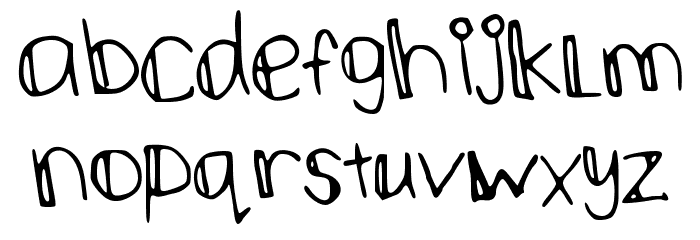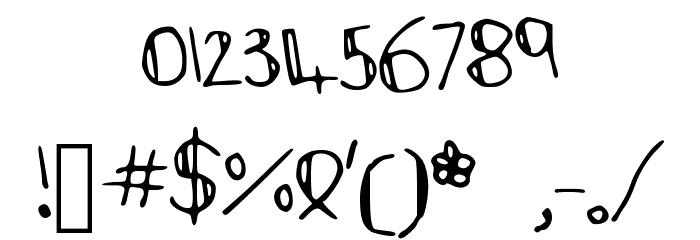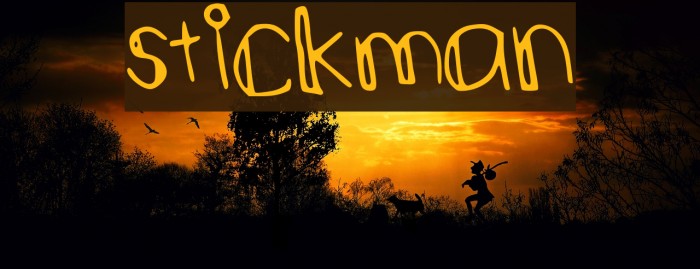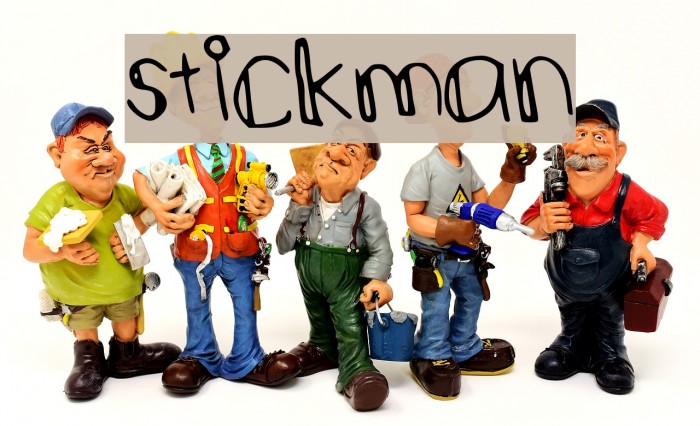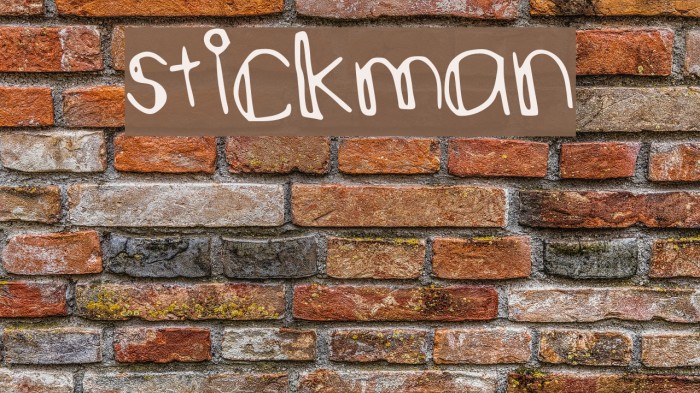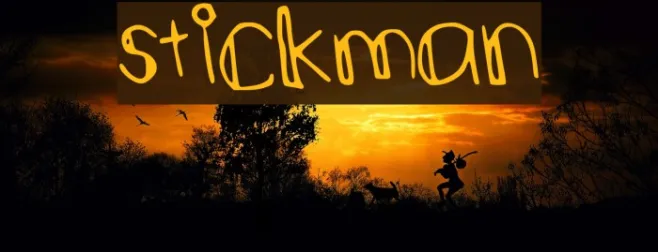
stickman Font
This playful and whimsical font features a hand-drawn, stickman-like appearance with irregular strokes and a casual, informal style. The characters are slightly uneven, giving them a quirky and unique personality. The uppercase and lowercase letters maintain a consistent style, with rounded edges and a slightly tilted orientation. Numbers and special characters follow the same playful design, making the font suitable for creative and fun projects. The overall look is reminiscent of doodles or sketches, adding a touch of humor and lightheartedness to any text.
A playful, hand-drawn font with a whimsical, stickman-like style.
- Proposed Projects: Ideal for children's books, comic strips, playful branding, and casual invitations.
- Use Case: Headlines, Logos, Informal text